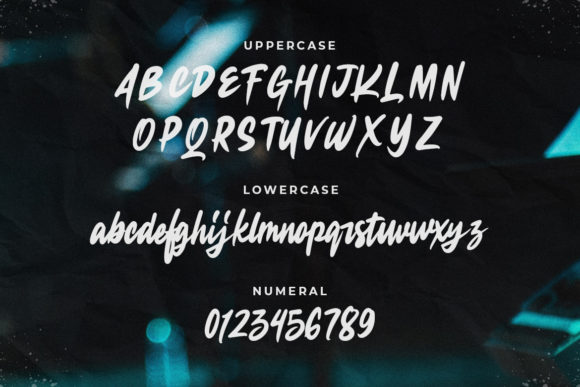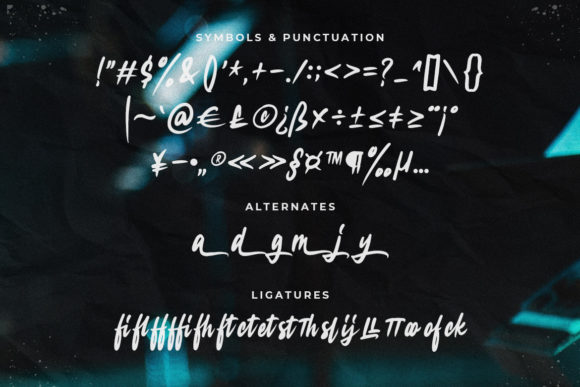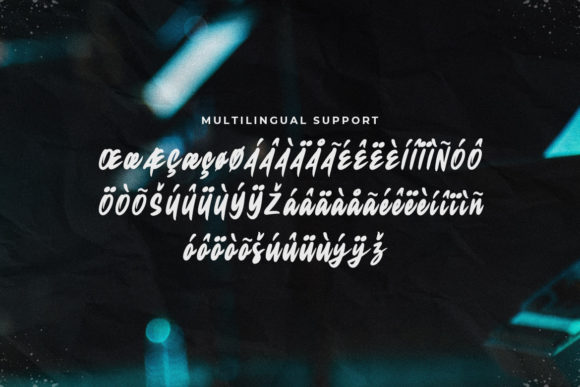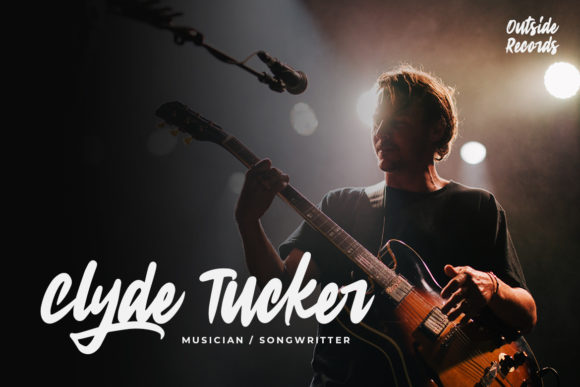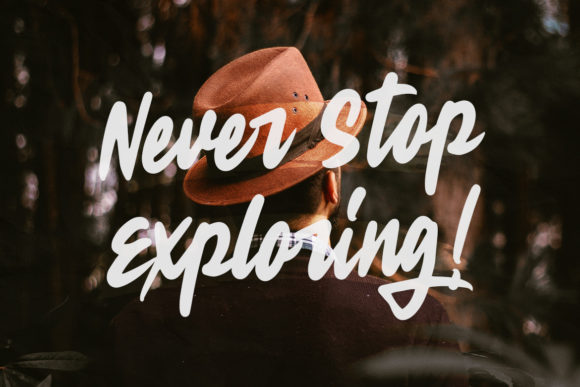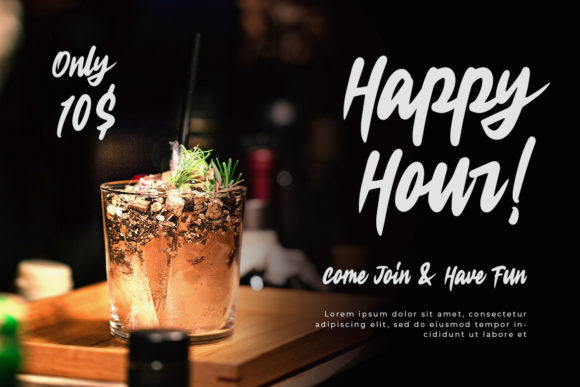
Adding a Touch of Elegance with Jackal Band Font
As designers, we’ve all been there – staring at a blank canvas, trying to find the perfect font to bring our ideas to life. The search for that elusive combination of style, elegance, and personality can be a daunting task. But what if I told you there’s a font that can instantly elevate your designs and leave a lasting impression?
Enter Jackal Band Font, a stunning and bold handwritten font that’s perfect for adding a touch of sophistication to your headlines and logotype projects. With its confident and dynamic feel, Jackal Band Font is more than just a font – it’s a statement piece that can add tons of nostalgic character to your designs.
Whether you’re a seasoned pro or just starting out, Jackal Band Font is a valuable addition to any designer’s toolkit. Its versatility and unique charm make it a must-have for anyone looking to add a touch of elegance and personality to their work.
Key Features of Jackal Band Font
- Font Family: Jackal Band Font is a custom-designed font family, ideal for music-related projects, posters, and more.
- Unique Characteristics: Features a unique, hand-drawn design with subtle texture and subtle variations in line width, giving it a distinctive, artistic feel.
- Character Set: Includes a comprehensive set of characters, including uppercase and lowercase letters, numbers, punctuation marks, and special symbols.
Designer Review: Jackal Band Font
Overall, I have mixed feelings about the Jackal Band Font. While it has its unique charm, there are also some limitations that prevent me from giving it a glowing review.
- The font’s distressed texture and worn look give it a distinct, vintage feel that’s perfect for music-related projects, especially those with a rock or punk theme.
- The font is highly legible, even at smaller sizes, which makes it suitable for use in a variety of contexts, from album art to merchandise.
- The font comes in a range of weights and styles, allowing for a good deal of customization and flexibility.
- The font’s design is quite specific, which may limit its appeal to designers who prefer more neutral or modern typography.
- The font’s distressed texture may not be suitable for all types of projects, such as those requiring a clean or minimalist aesthetic.
- The font’s character set is somewhat limited, which may make it less practical for use in extended text.
In conclusion, the Jackal Band Font is a unique and charming addition to any designer’s toolkit, but its limitations should be carefully considered before using it in a project.
Tips for Getting the Most Out of Jackal Band Font
Use bold and italic styles to add emphasis and create visual interest.
Combine Jackal Band Font with other fonts for a unique and eye-catching design.
Experiment with different font sizes and colors to create a cohesive look.
Use Jackal Band Font for music-related designs, such as posters, flyers, and social media graphics.
Apply the font to sports-related designs, such as jerseys, logos, and scoreboards.
Use Jackal Band Font for creative and artistic designs, such as typography posters and graphics.
Alternatives to Jackal Band Font
Compared to Jackal Band Font, Athelas Font is more versatile and offers better readability in smaller sizes. It is also more suitable for digital use due to its optimized design.
What is the recommended font size and line height for optimal readability with the Jackal Band Font?
For optimal readability, we recommend using a font size between 12 and 18 points, with a line height of at least 1.2 to 1.5 times the font size. This will ensure that the text is clear and easy to read, even at smaller font sizes.